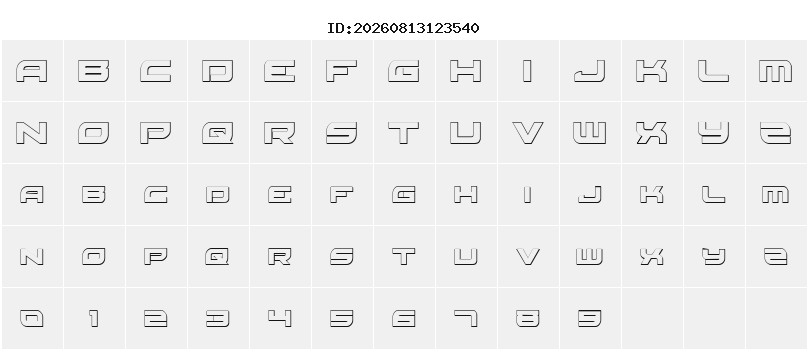
• Font Name: Red Rocket 3D
• Full Font Name: Red Rocket 3D Regular
About Red Rocket 3D.ttf
Red Rocket 3D.ttf is a modern, elegant sans-serif font designed for ultimate readability and visual harmony. Perfect for branding, headlines, web design, and print materials.